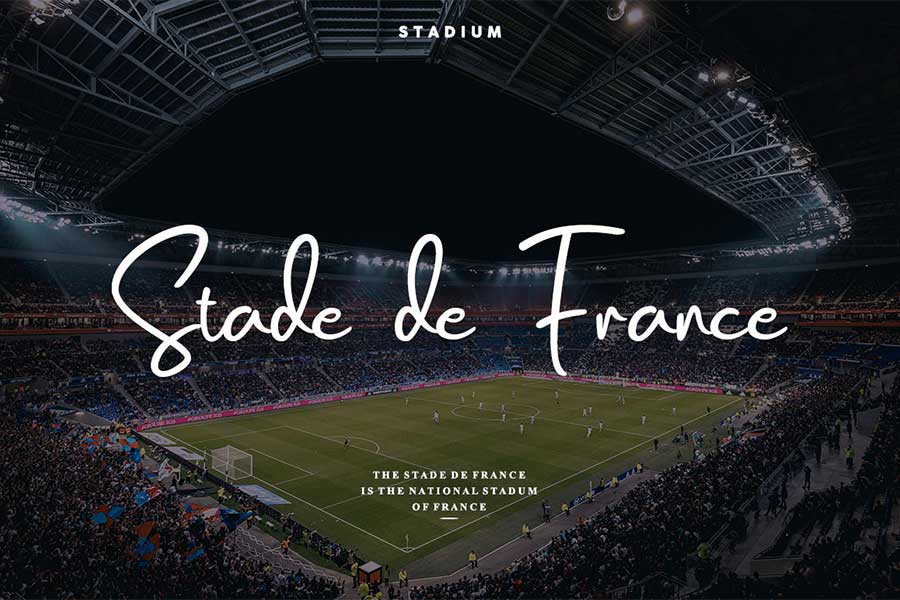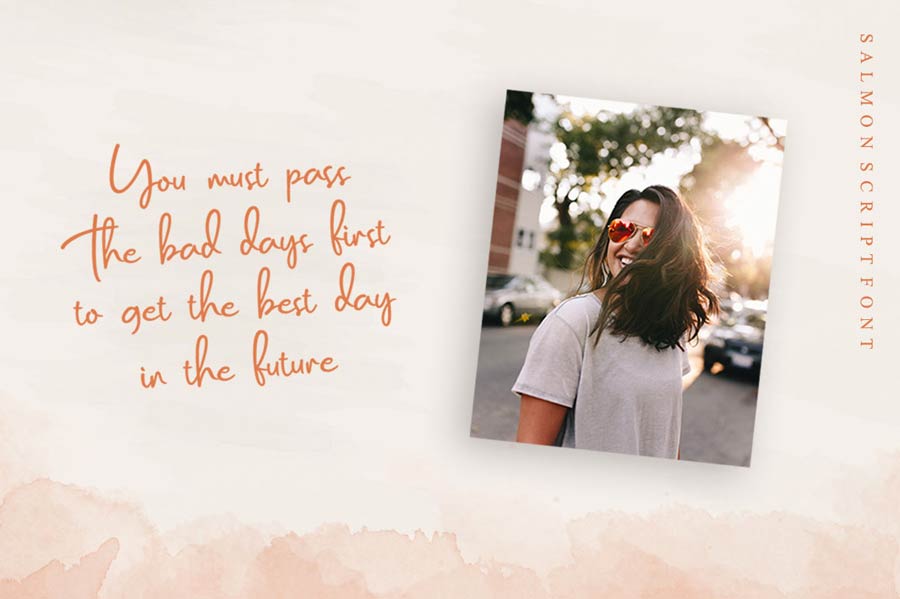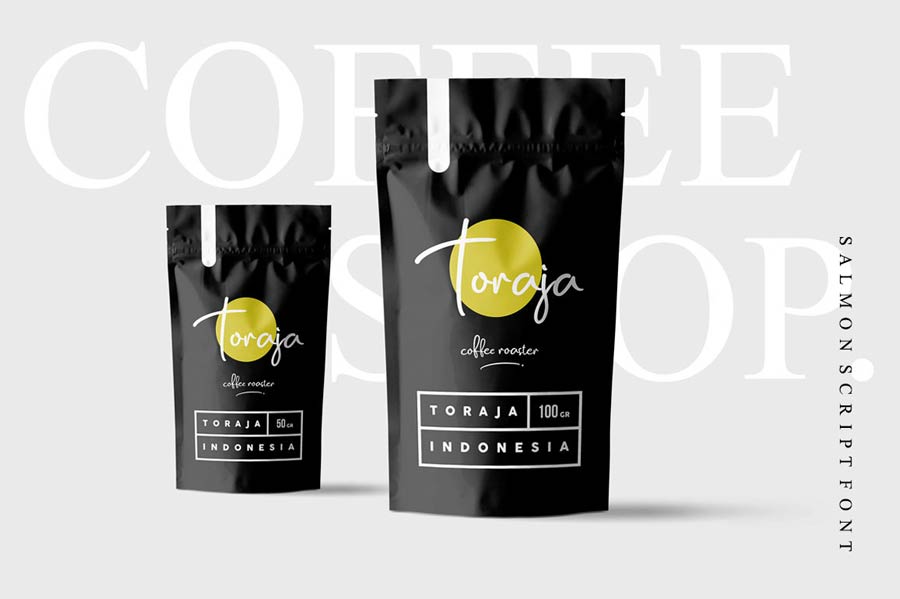
Salmon Script is a stylish and elegant hand-drawn font free to download. The strokes are fluidic and is friendly to the human eye.
Salmon Script is suitable to be used on branding, packaging, editorial, invitation cards and more. This feel-good font comes with a small collection of ligatures too. The free version of the font is for demo-use only.